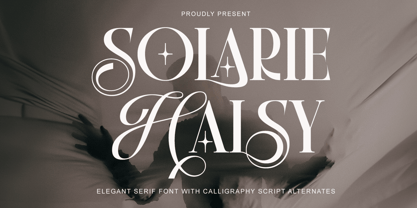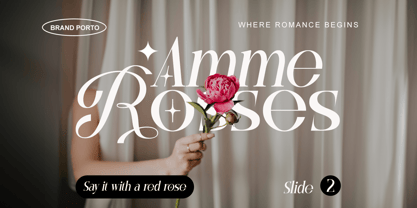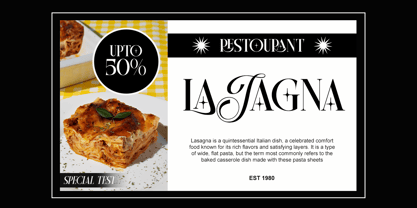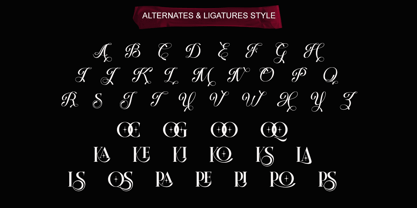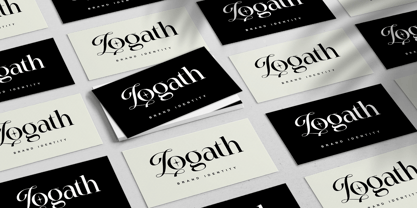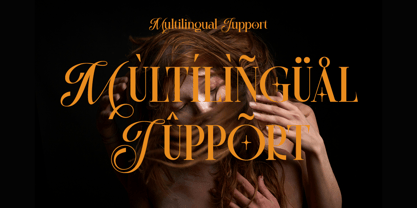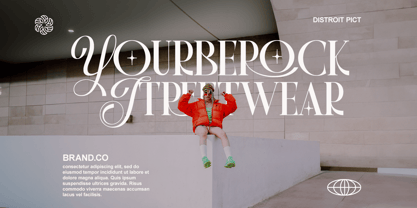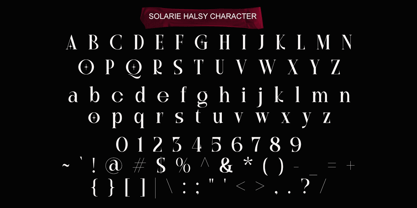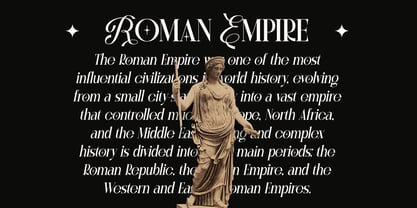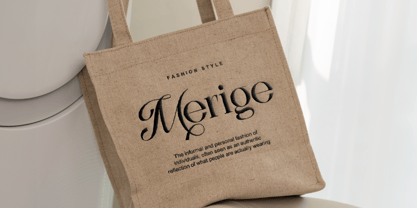
Solarie Halsy
by RagamKata
The Solarie Halsy Font Family was designed by Yogiswhara Dio Prakoso Riadi and published by RagamKata. Solarie Halsy contains 2 styles and family package options. More about this family
Solarie Halsy is a beautiful elegant serif font with calligraphy script alternates. Perfect pairing of timeless calligraphy script and Classy serif fonts. These fonts have been carefully designed from the ground up to work in harmony. This font is made mainly for headlines, titles, and other short texts and is well-suited for advertising, vintage mood board, branding, logotypes, packaging, titles, editorial design, modern logos, websites, social media quotes, wedding branding, modern and vintage design.
- Calligraphy Script Alternates
- Stylish Ligatures